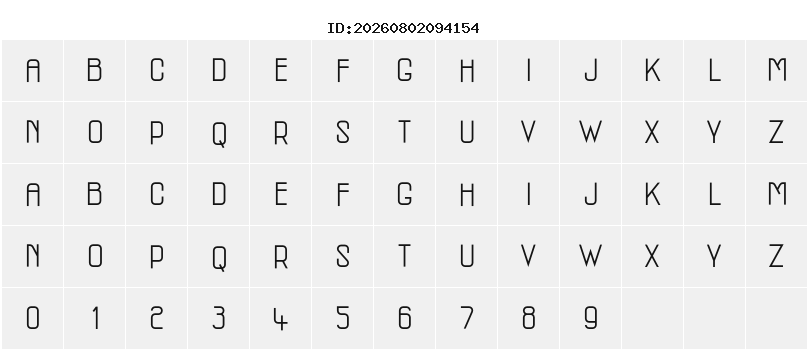
• Font Name: MCM
About MCM.otf
MCM.otf is a modern, elegant sans-serif font designed for ultimate readability and visual harmony. Perfect for branding, headlines, web design, and print materials.